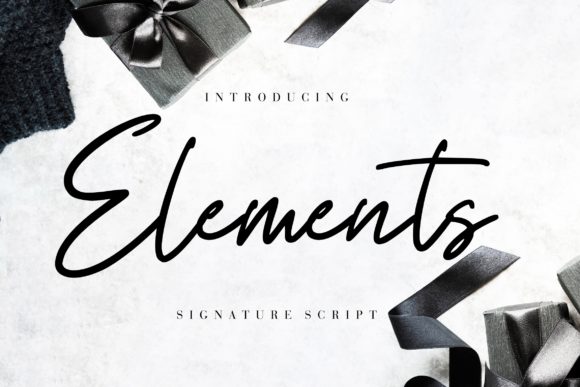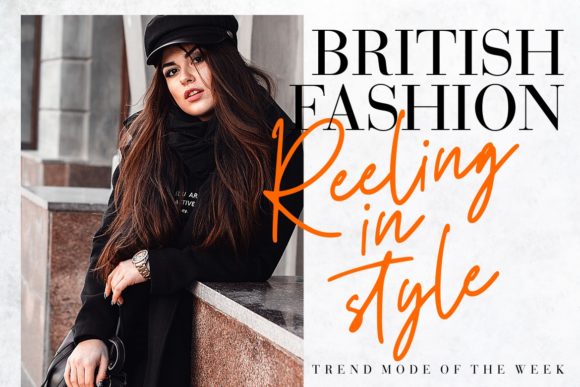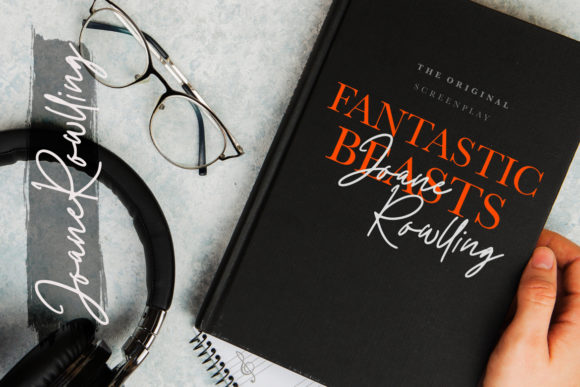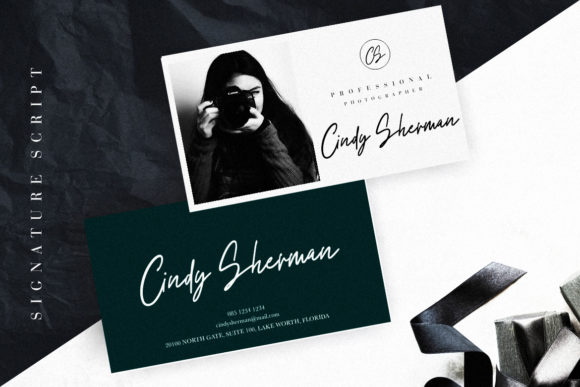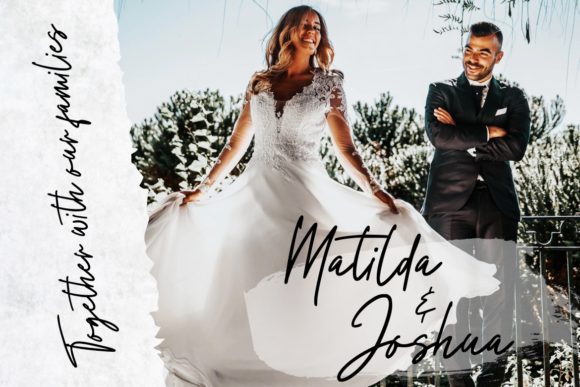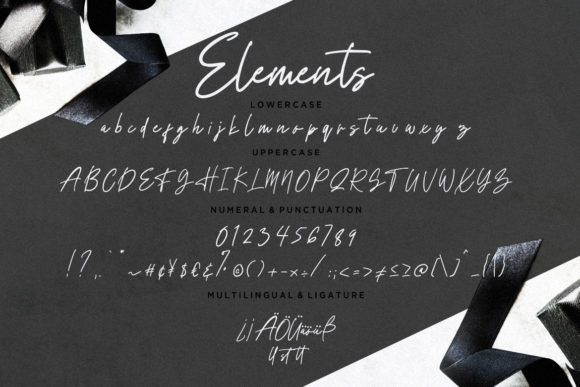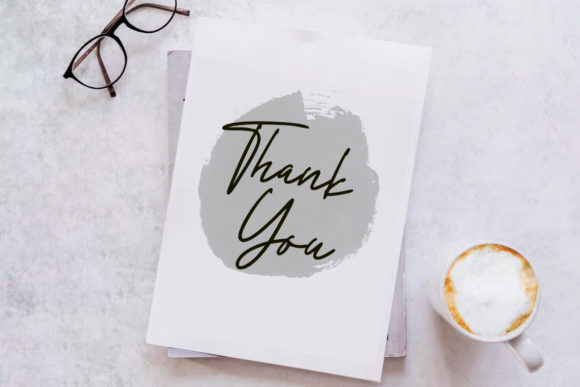
HomeScript FontsElements Font Script Fonts Elements Font FacebookXPinterestWhatsApp Elements Font Poster 2 Elements Font Poster 3 Elements Font Poster 4 Elements Font Poster 5 Elements Font Poster 6 Elements Font Poster 7 Elements Font Poster 8 About Elements Font Elements is an incredibly sweet and bold script with a modern approach to lettering. DOWNLOAD NOW People also explored Simple Vintage Font Sweet Heart Font Ultimate Sports Font Bundle Font Charming Anneta Font Ghost Town Font Inner Vintage Font Slatern Font Christmas Wonderful Font Newcomers Font 318 0 TagsElements Font Previous articleArabella FontNext articleRenatta Font LEAVE A REPLY Cancel reply Comment: Please enter your comment! Name:* Please enter your name here Email:* You have entered an incorrect email address! Please enter your email address here Website: Save my name, email, and website in this browser for the next time I comment. Personal Use Free Hello December Personal Use Free Read more about this font Berry Personal Use Free Read more about this font Alista Font Personal Use Free Read more about this font Bright Dreams Personal Use Free Read more about this font BLOG Transform Your Website: Elevate Your Typography with 7 Best Web Font Generators Are you ready to transform your website's typography from ordinary to extraordinary? Great! Today, we're diving into the world of web font generators, which... Modern Sans-Serif Fonts That Brands Love in 2025 Top 10 Handwritten Fonts That Elevate Your Designs To increase your work productivity, choose the most readable fonts.